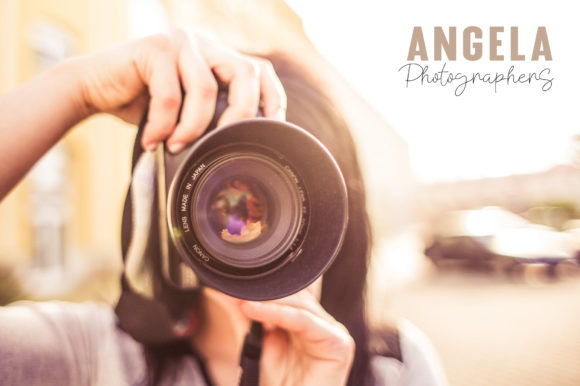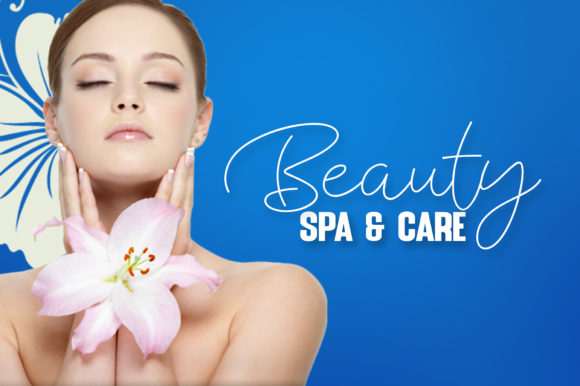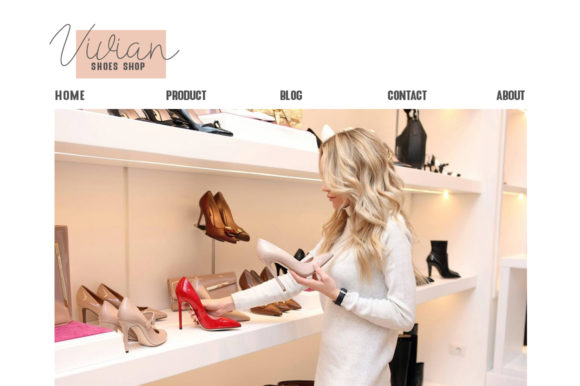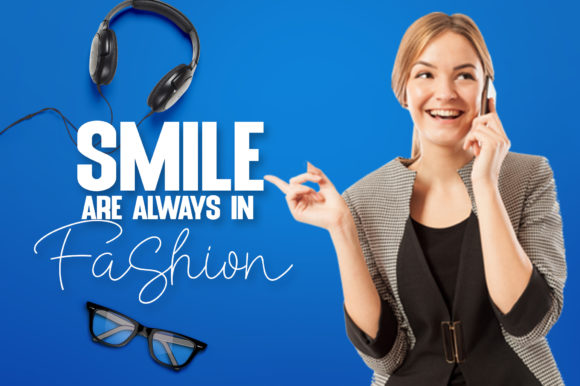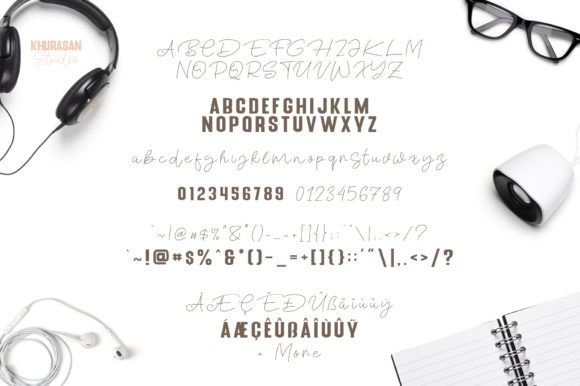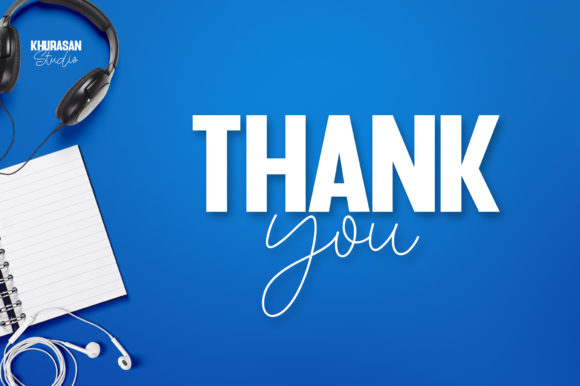
The Blue Fonte Duo: A Match Made in Design Heaven
- ✨ The Blue Fonte Duo is a stunning combination of two fonts that complement each other beautifully.
- ✅ The primary font has a sleek, modern feel with elegant lines and curves.
- ✅ The secondary font adds a touch of playfulness and whimsy, making it perfect for creative projects.
- ✅ The font duo supports OpenType features, allowing for a range of creative possibilities.
While the Blue Fonte Duo is an amazing font duo, there are a few things to keep in mind. 🤔
- ⚠️ Some of the more intricate glyphs can be a bit finicky, requiring a bit of tweaking to get just right.
- ⚠️ The font duo doesn’t come with a built-in italic version, so you’ll need to rely on oblique or faux italics.
The Story Behind the Blue Fonte Duo
The Blue Fonte Duo was designed by a team of typographers who wanted to create a font duo that was both elegant and playful. Inspired by the beauty of the natural world, they crafted a font duo that is both refined and whimsical. The result is a font duo that is perfect for creative projects that need a touch of sophistication and a dash of personality.
Q: What is the Blue Fonte Duo?
A: The Blue Fonte Duo is a font duo that consists of two complementary fonts – a primary font with a sleek, modern feel and a secondary font with a playful, whimsical feel.
Q: Is the Blue Fonte Duo suitable for body text?
A: While the Blue Fonte Duo is primarily designed for display text, it can be used for body text in certain contexts. However, it’s recommended to use a larger font size to ensure optimal readability.